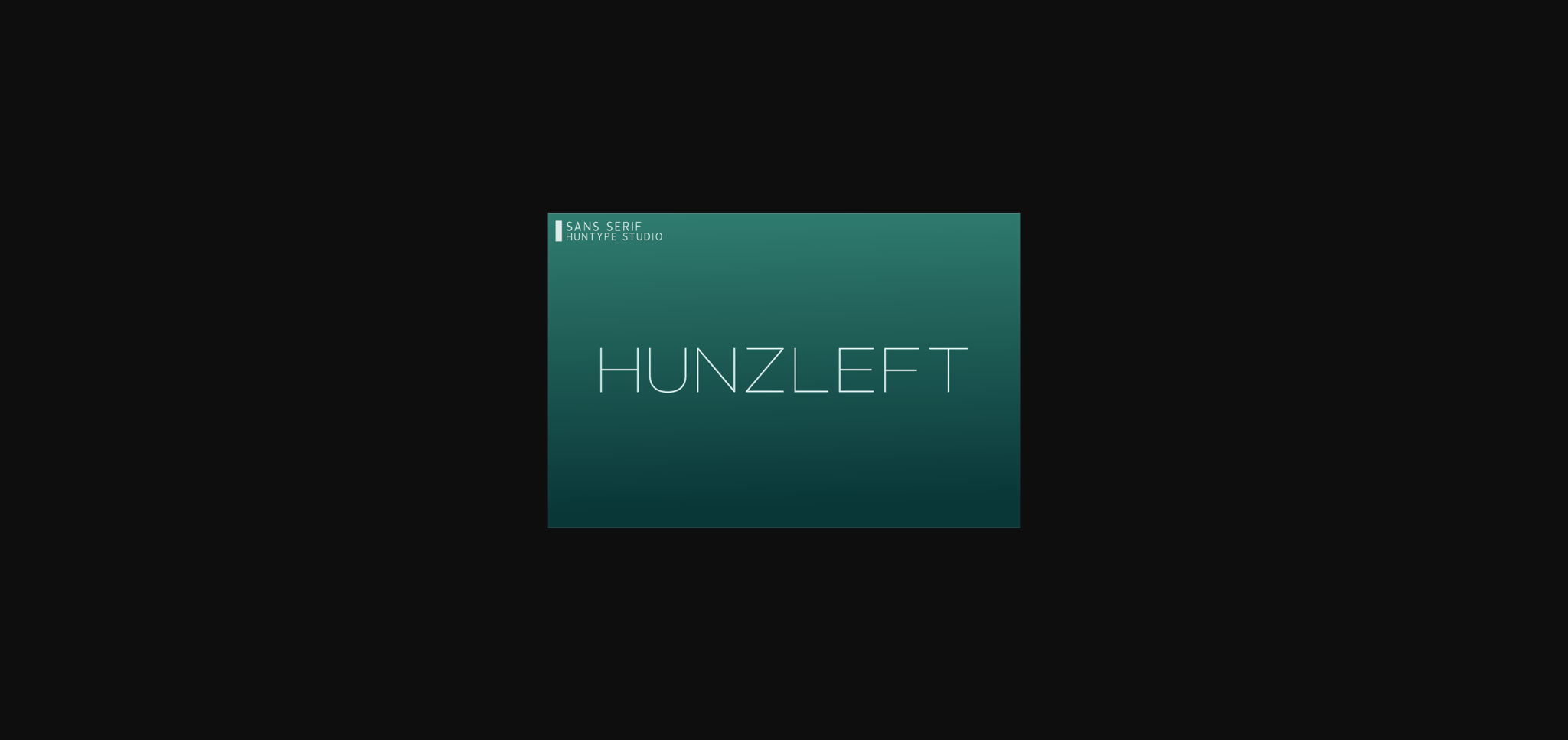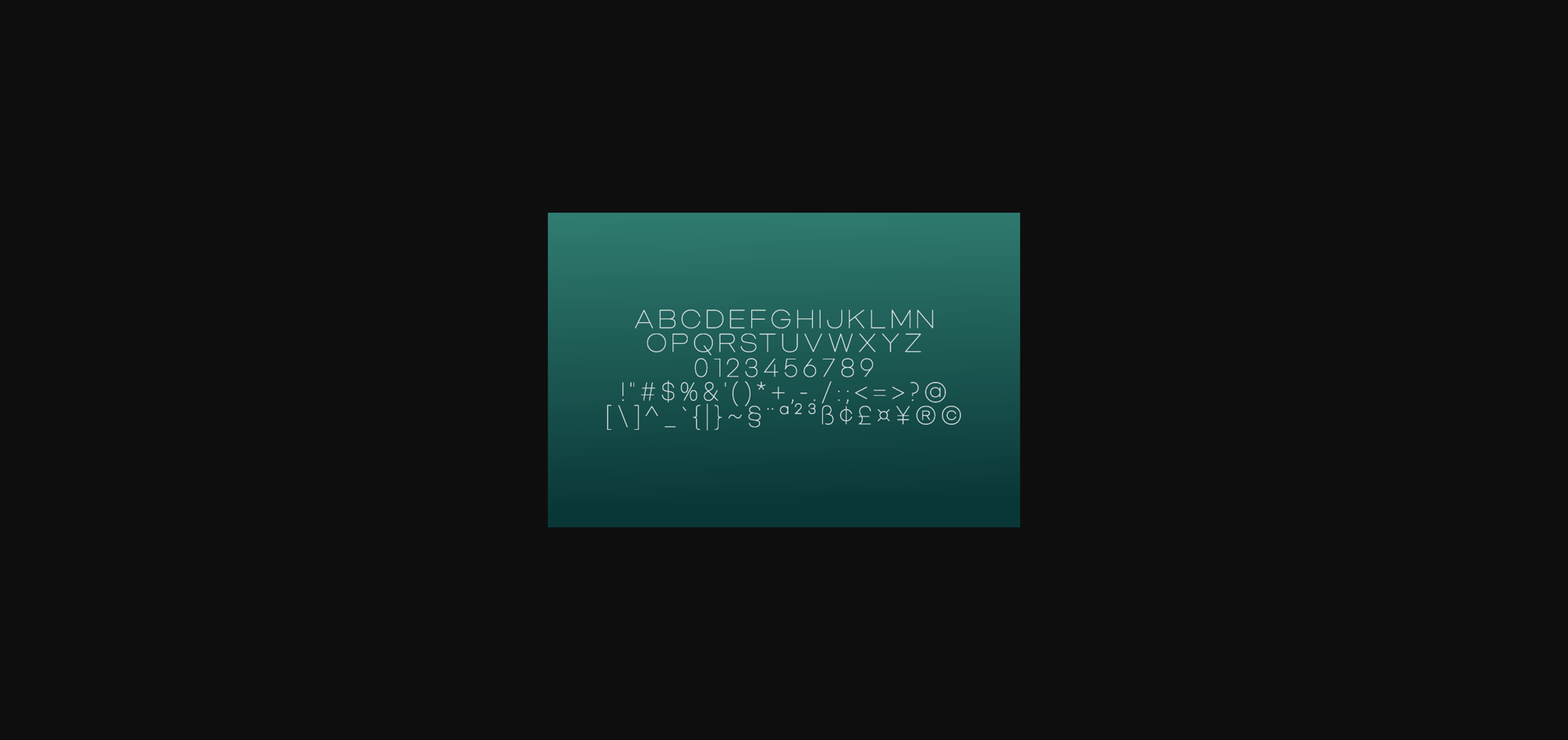
Hunzleft is a clean and simple geometric sans serif font. Crisp and elegant in the lighter weights, this font is the perfect fit for all of your logos, branding, social media and much more.